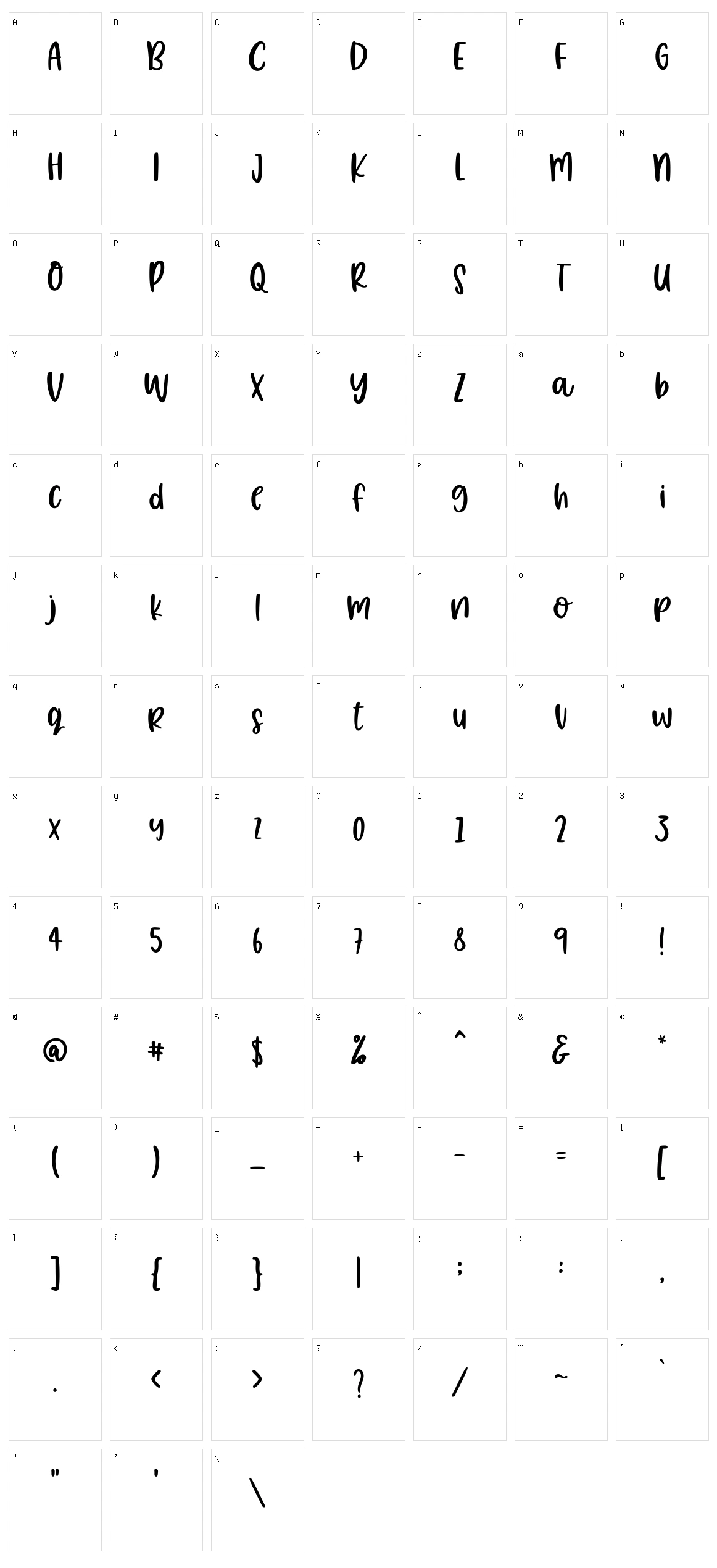
The free font Bloods Spearing is carefully designed by Beautypes, showcasing a thoughtful balance of creativity and usability and falls under the Script font style. When you download the ZIP file, it contains only 45.27 KB of font files, making it lightweight and quick to download. Please review the license details below to understand permitted usage and distribution rights. If license information is not available, we recommend using this font for personal projects only or contacting the author directly for commercial usage permissions.